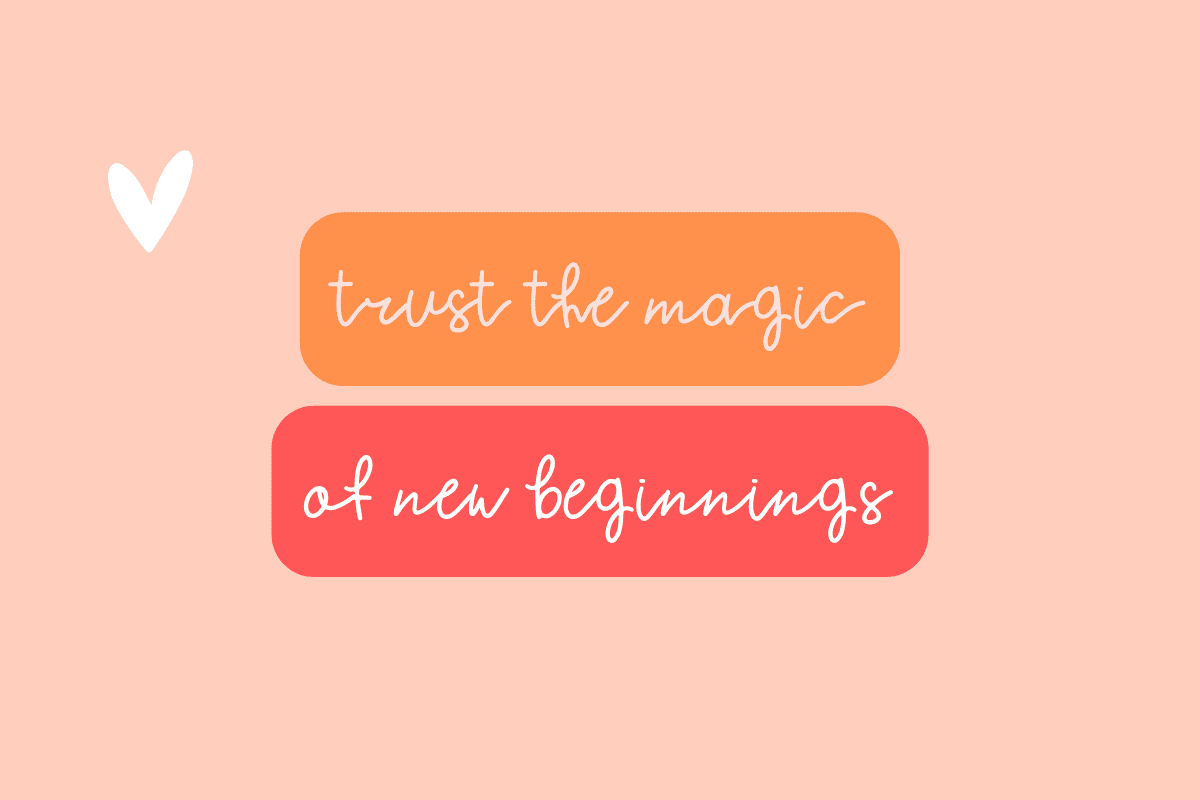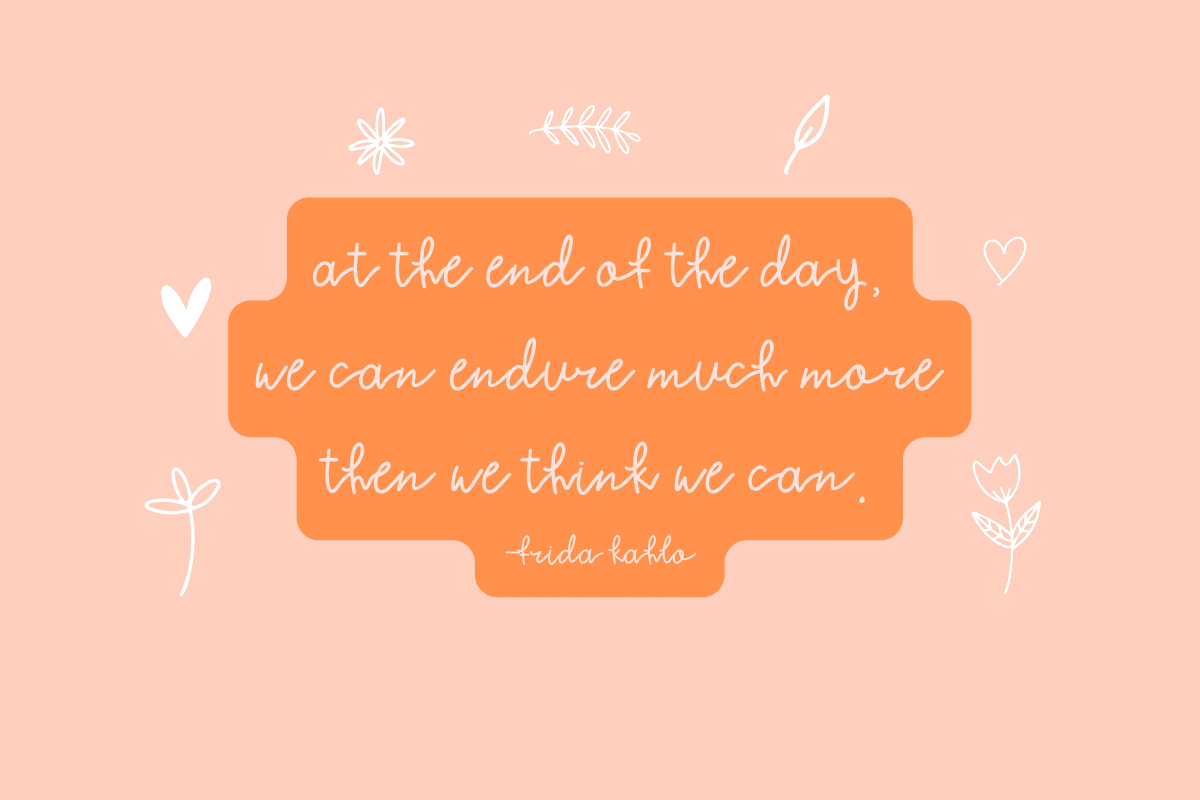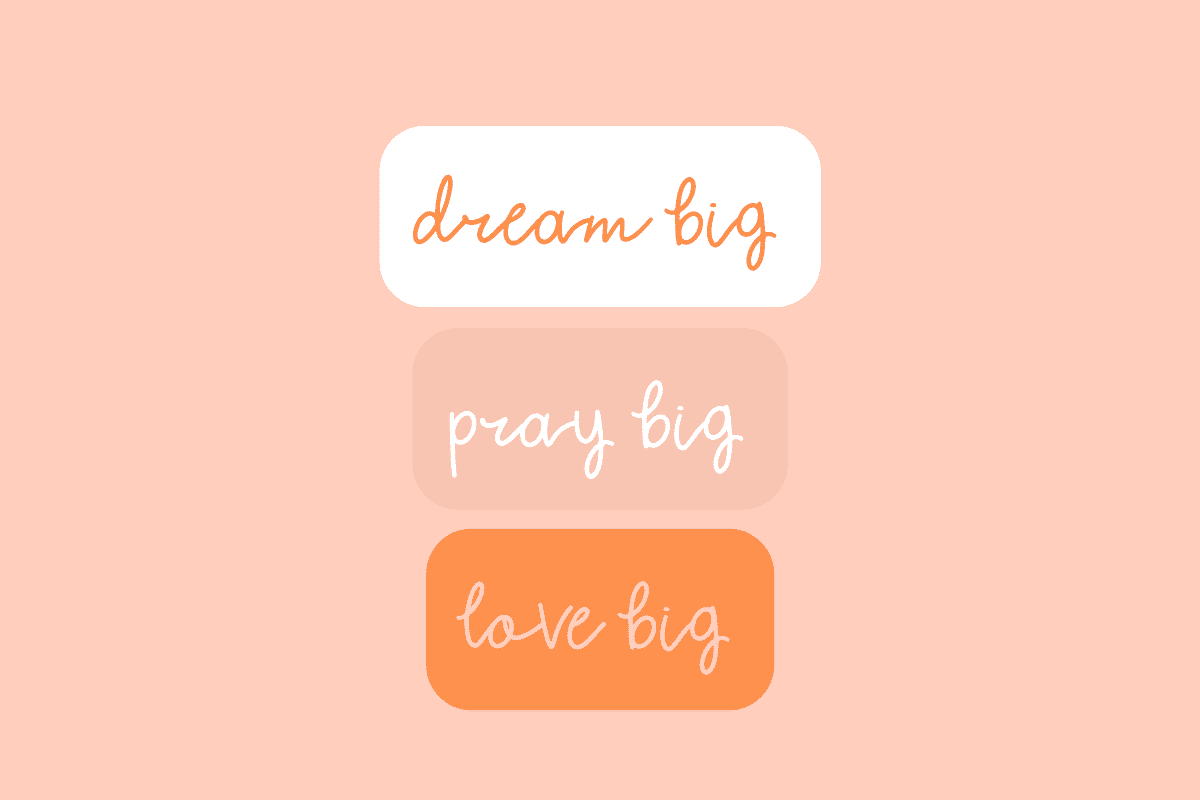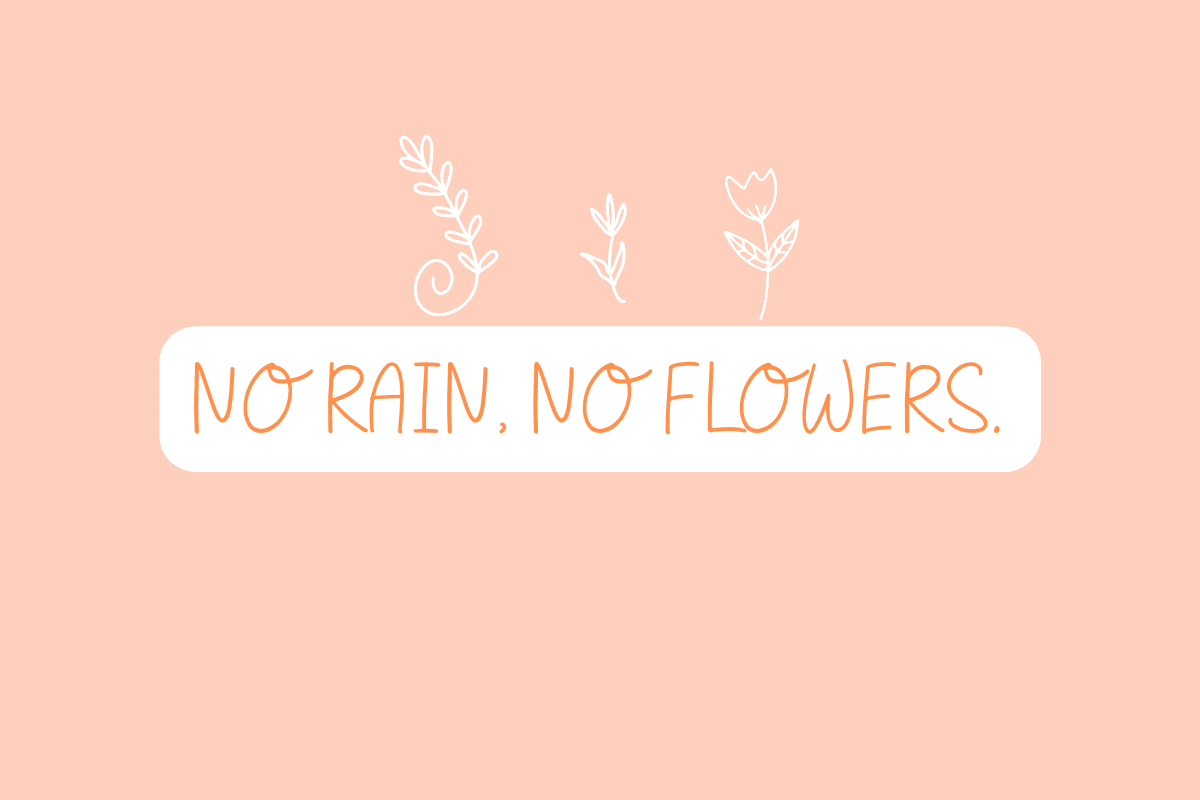
Peach blossom Doddles Font
This is my new font, it’s called Peach blossom. This font is handwritten font. it’s very suitable to be applied in your design, also it’s perfect for logo, branding, title, social media post, advertisements, product packaging, product designs, label, photography, special event, web design, etc.